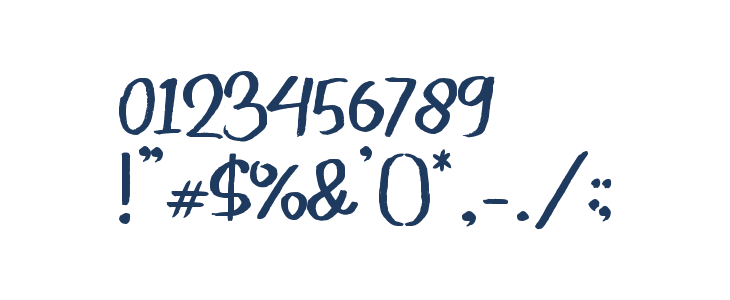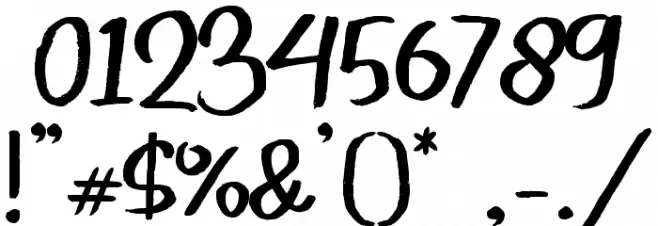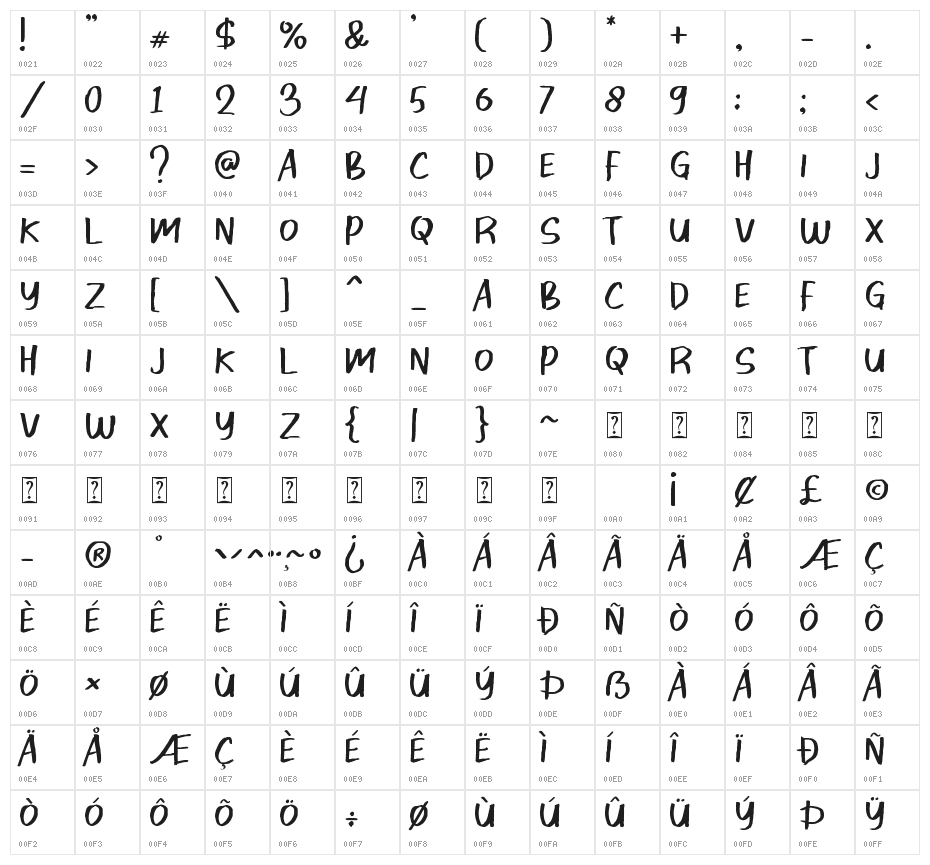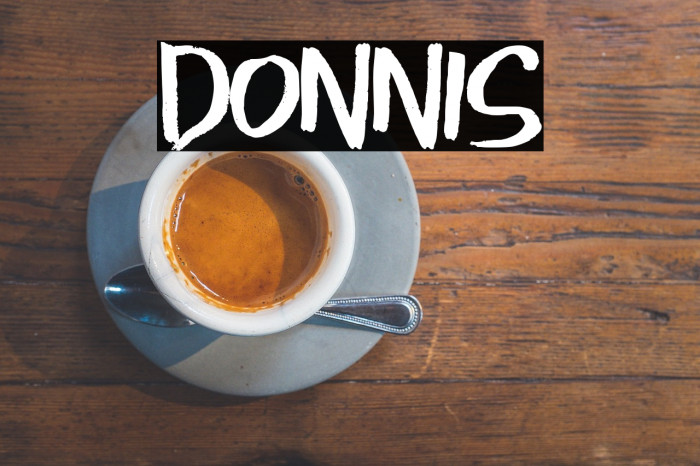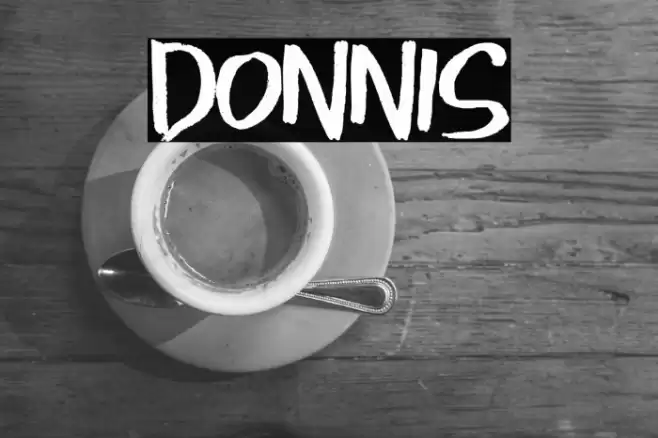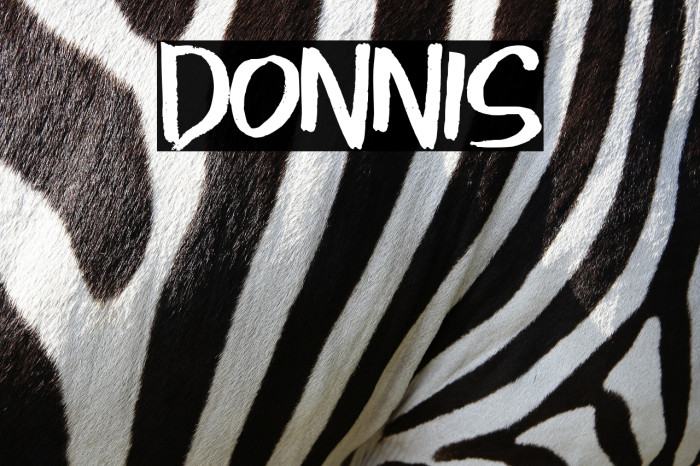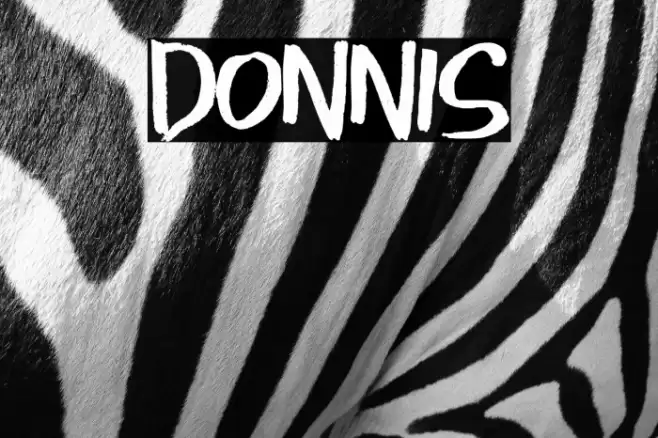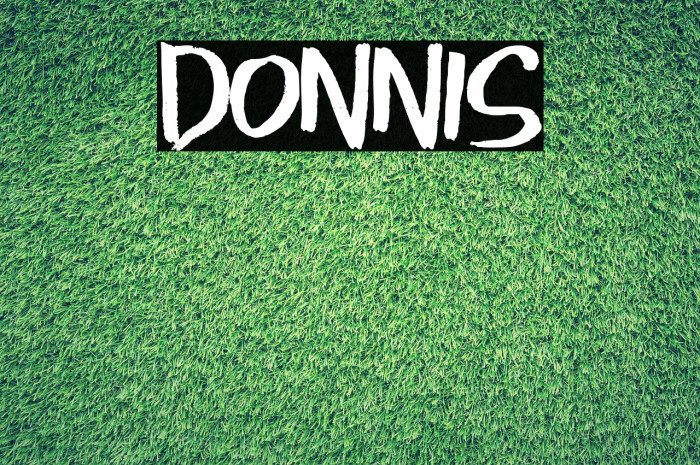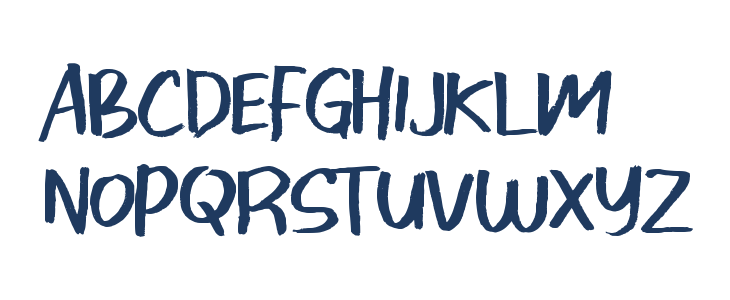
Donnis Font
Donnis Description
This font exhibits a bold and expressive handwritten style, characterized by its dynamic and energetic strokes. The letters have a slightly irregular baseline, giving it a casual and informal appearance. The uppercase and lowercase letters maintain a consistent style, with rounded edges and a playful flair. The numbers and special characters follow the same aesthetic, ensuring a cohesive look across all glyphs. The font's brush-like texture adds a sense of movement and creativity, making it suitable for designs that require a personal touch.
| Proposed Projects | Ideal for creative projects such as posters, invitations, branding, and social media graphics where a personal and informal touch is desired. |